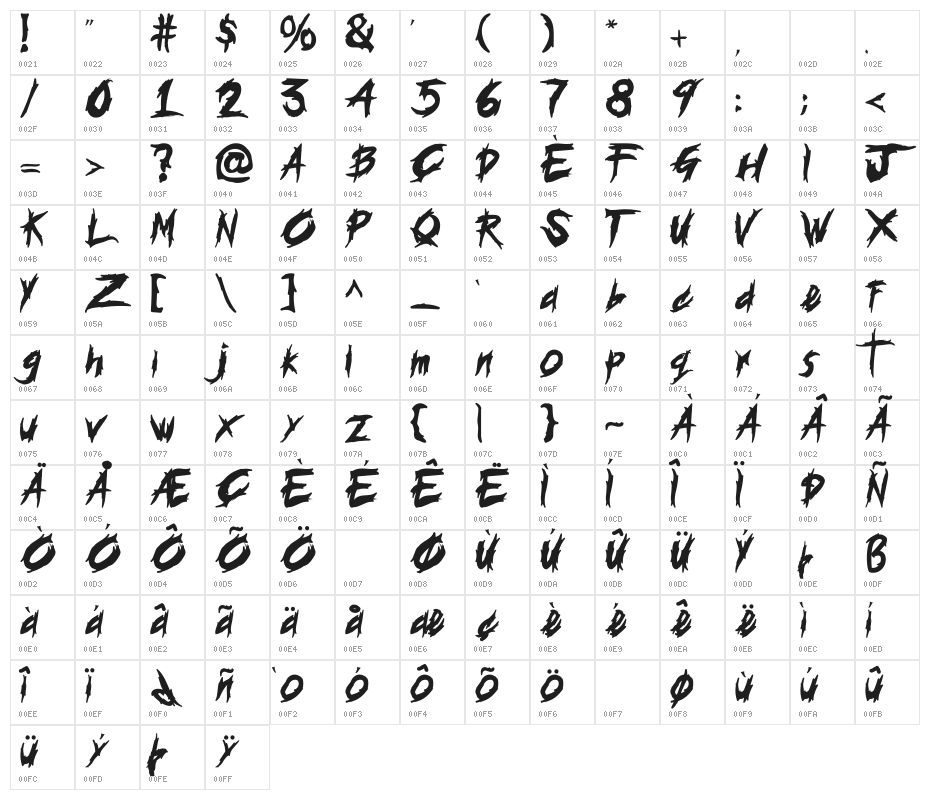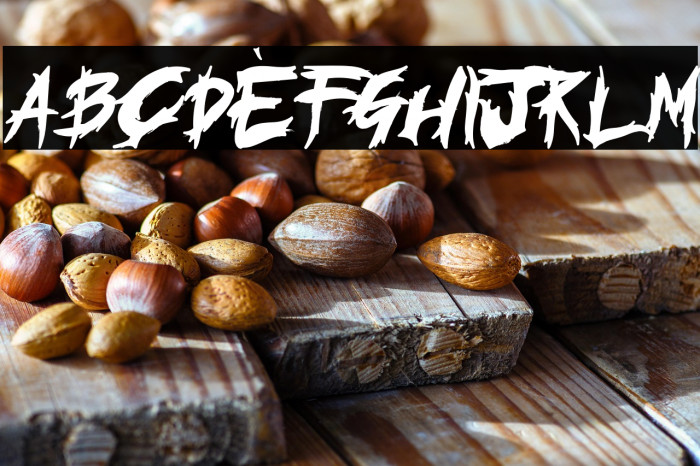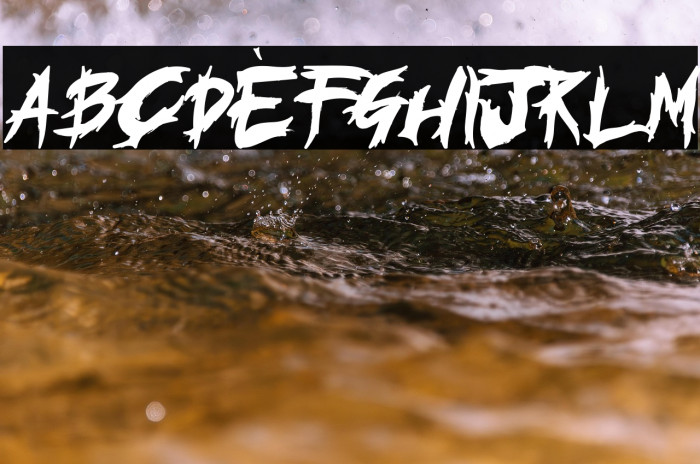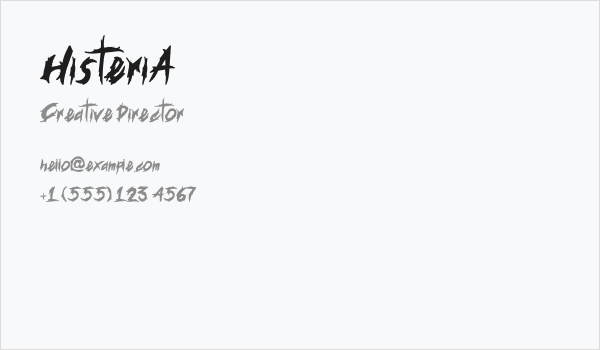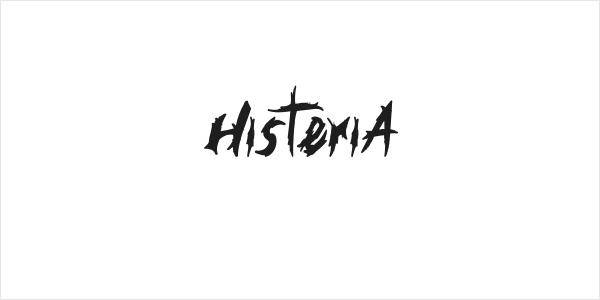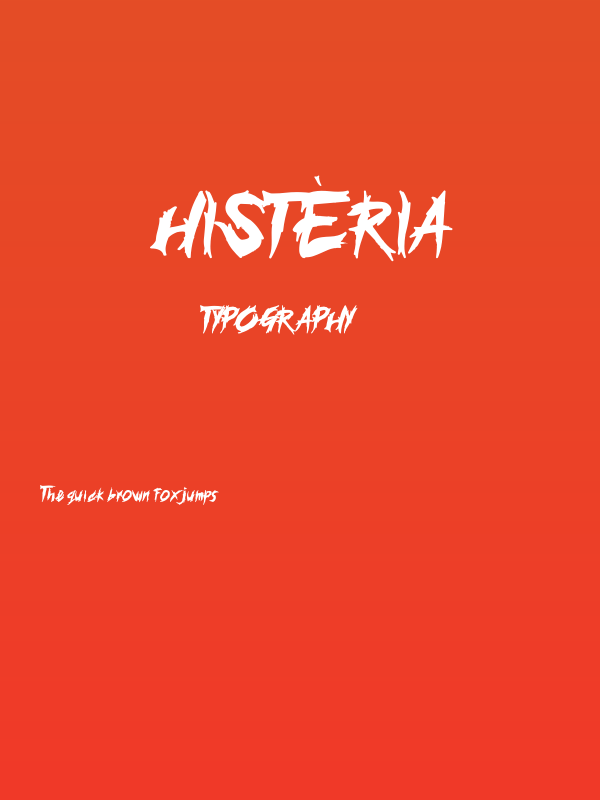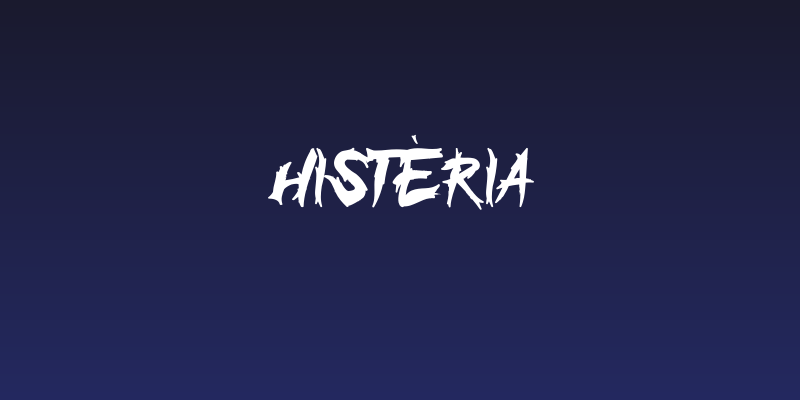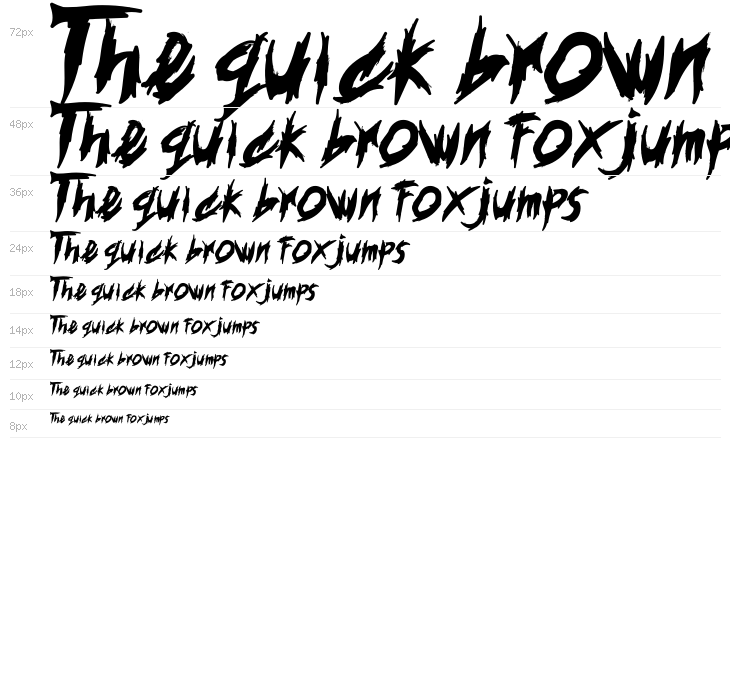
HisteriA Font
HisteriA Description
This font exhibits a bold and dynamic style with a distinct brush-like appearance. The characters are irregular and jagged, giving off an energetic and rebellious vibe. The strokes are thick and uneven, creating a sense of movement and intensity. This font is highly expressive, with each letter appearing as if it were painted with a quick, confident hand. The uppercase and lowercase letters maintain a consistent style, while the numbers and special characters complement the overall aesthetic. Its unique design makes it stand out, perfect for projects that require a strong visual impact.
| Proposed Projects | Ideal for music album covers, posters, graffiti art, and edgy branding projects. |